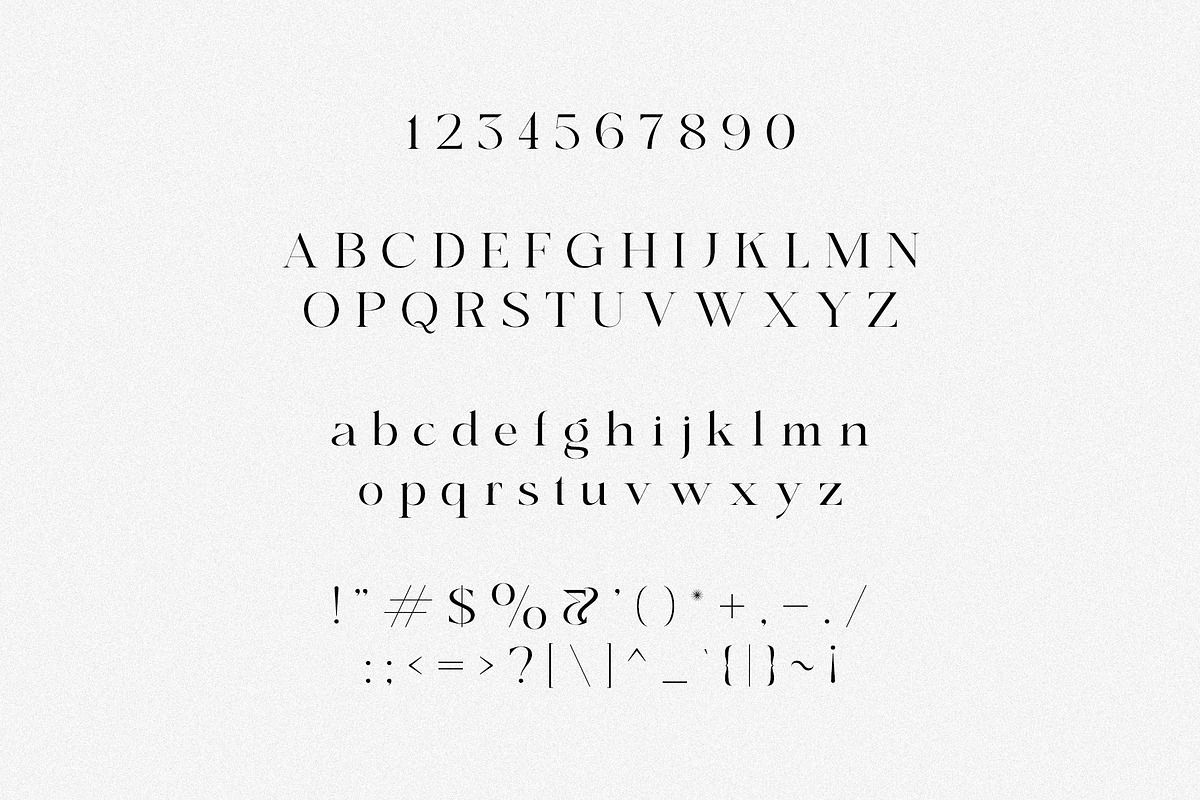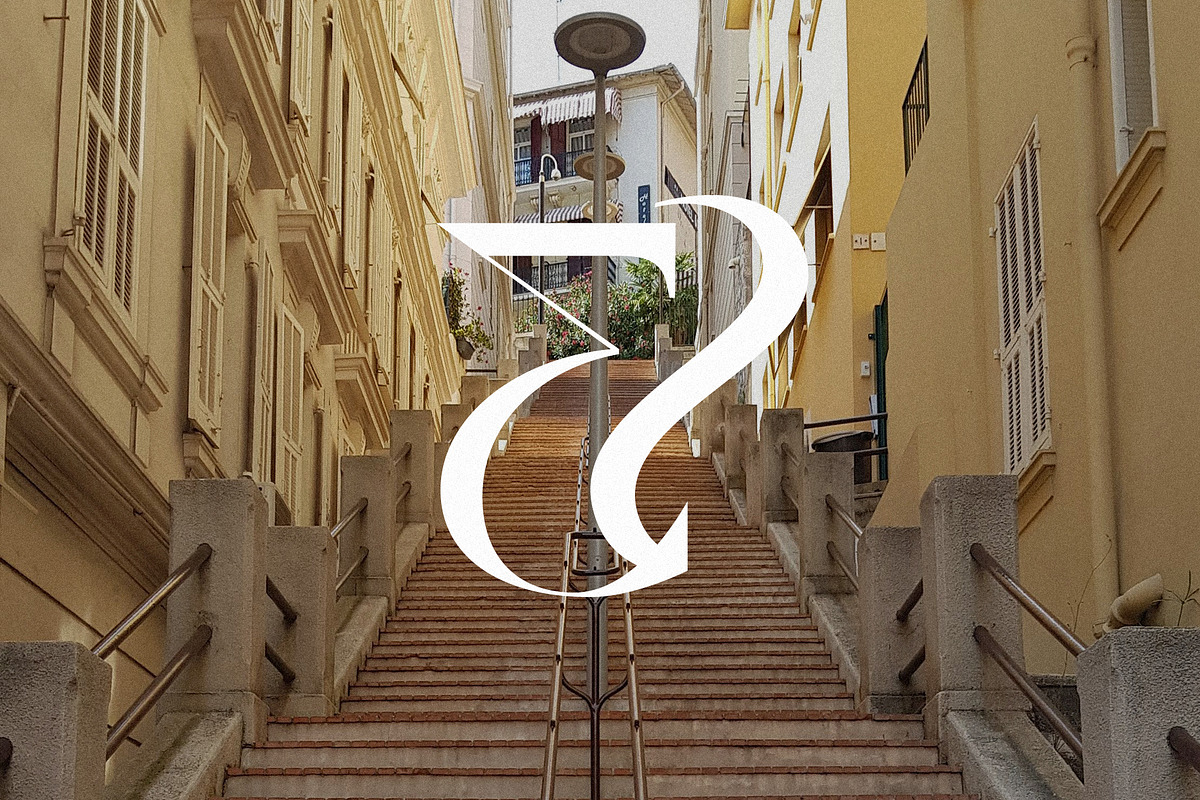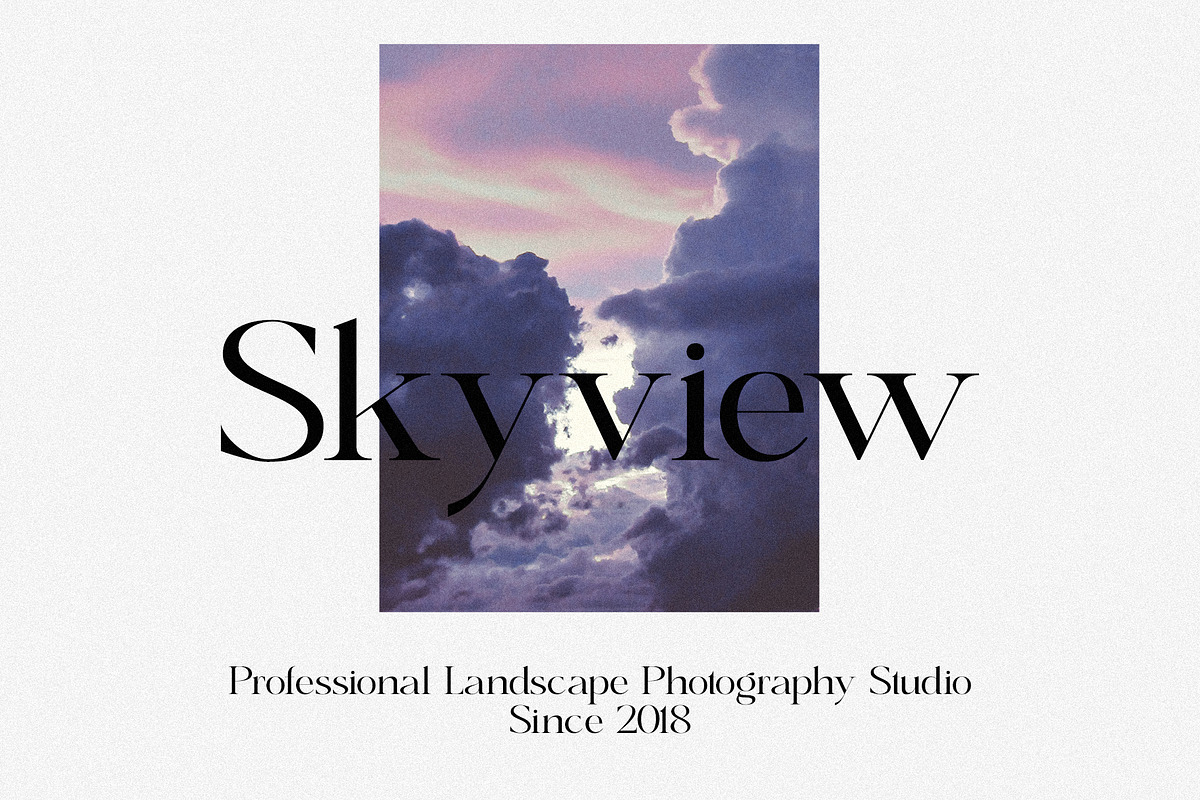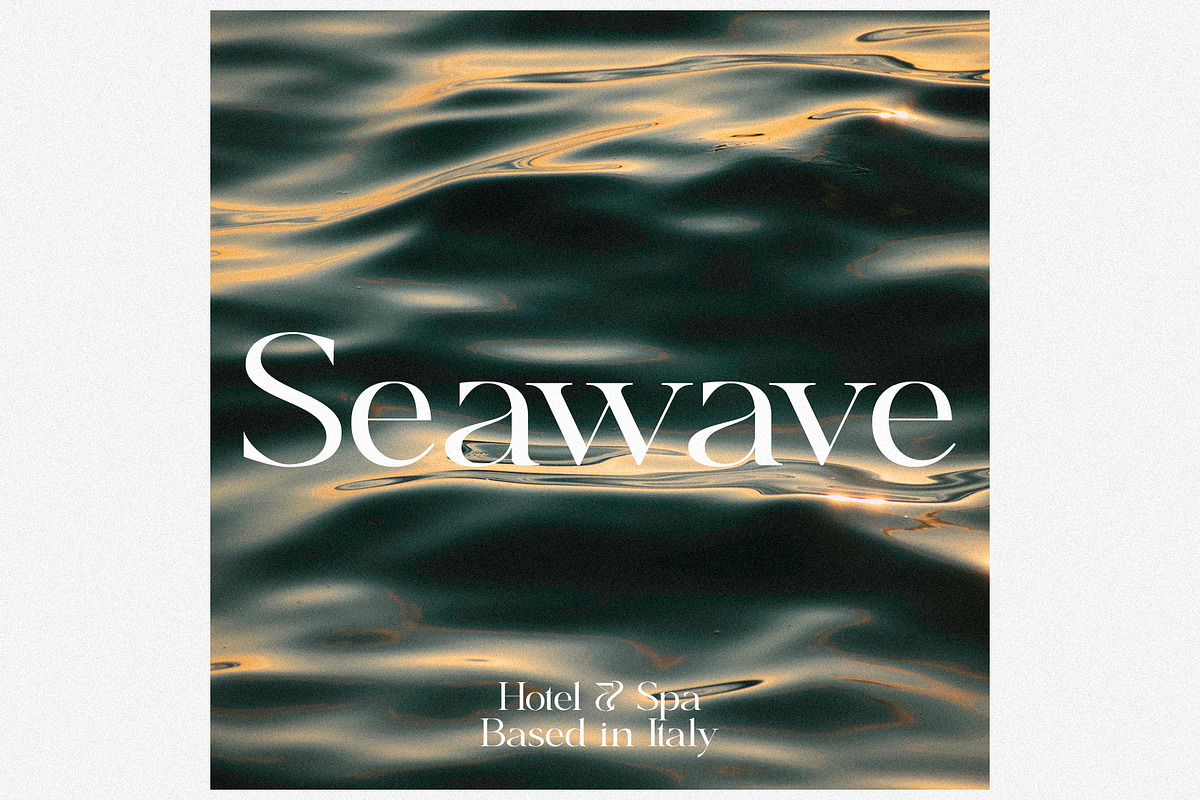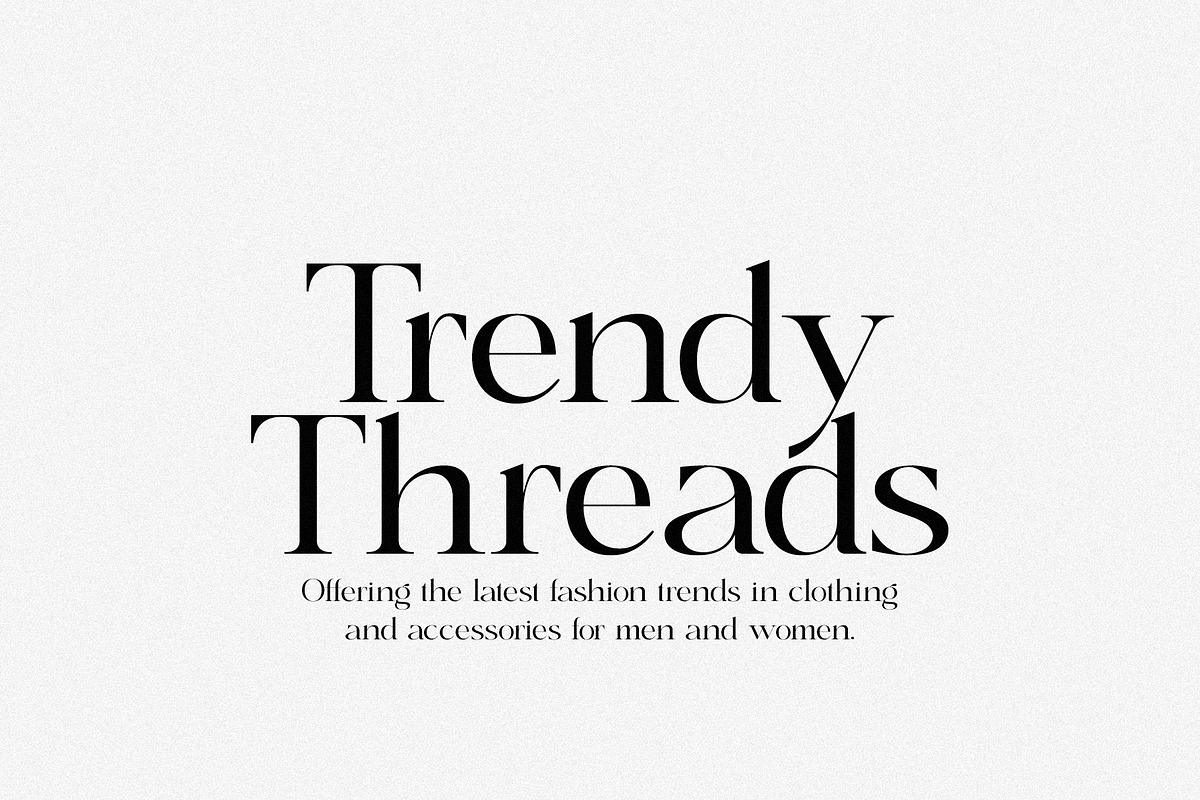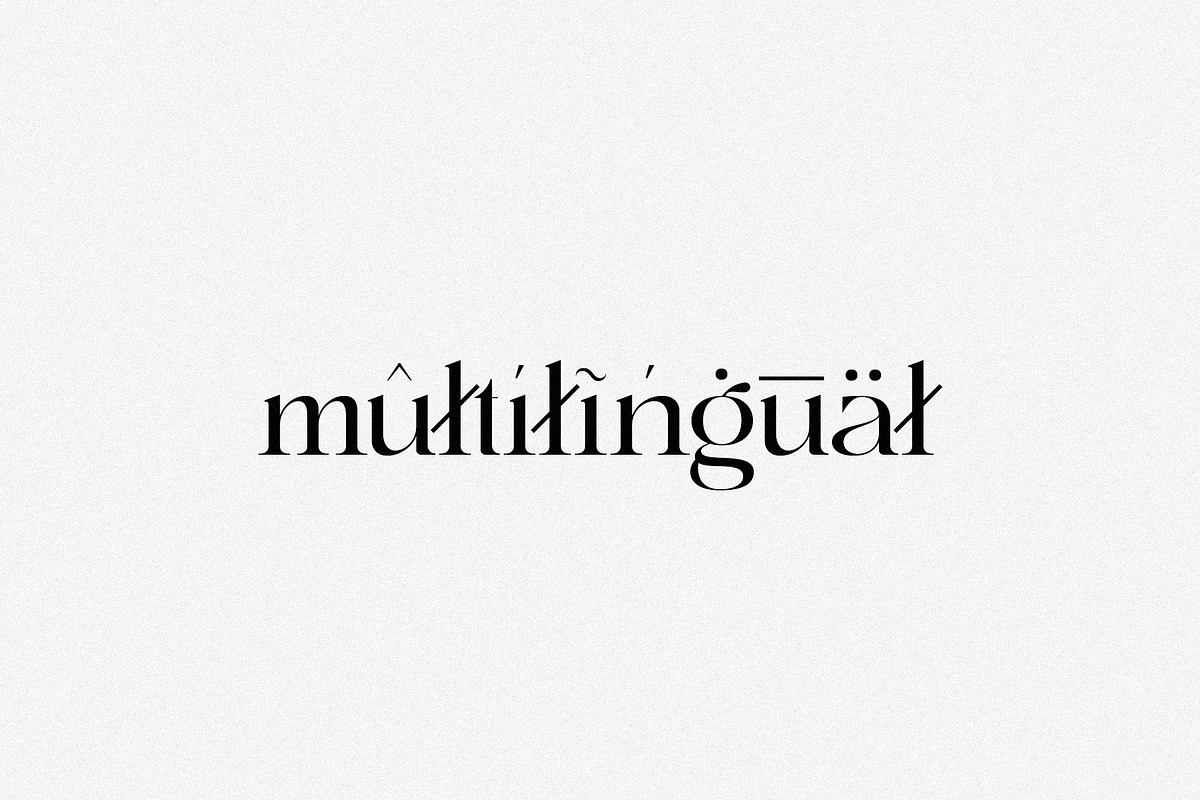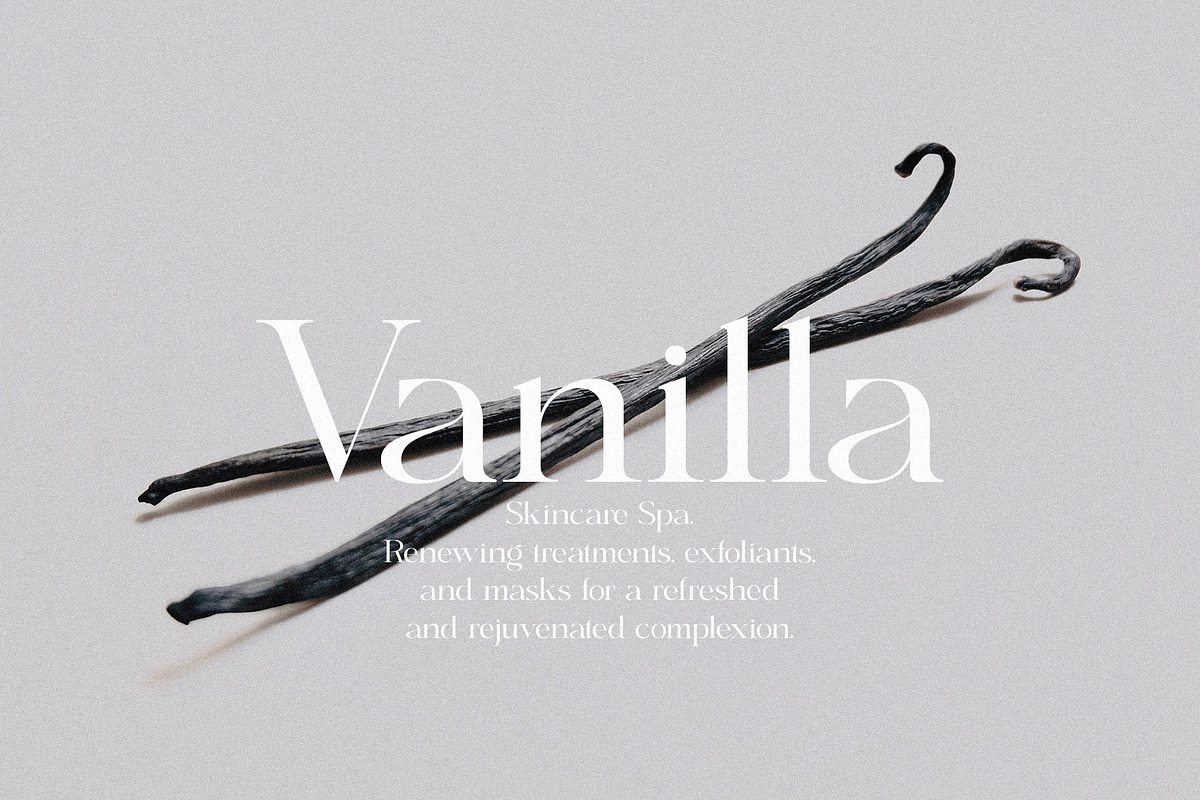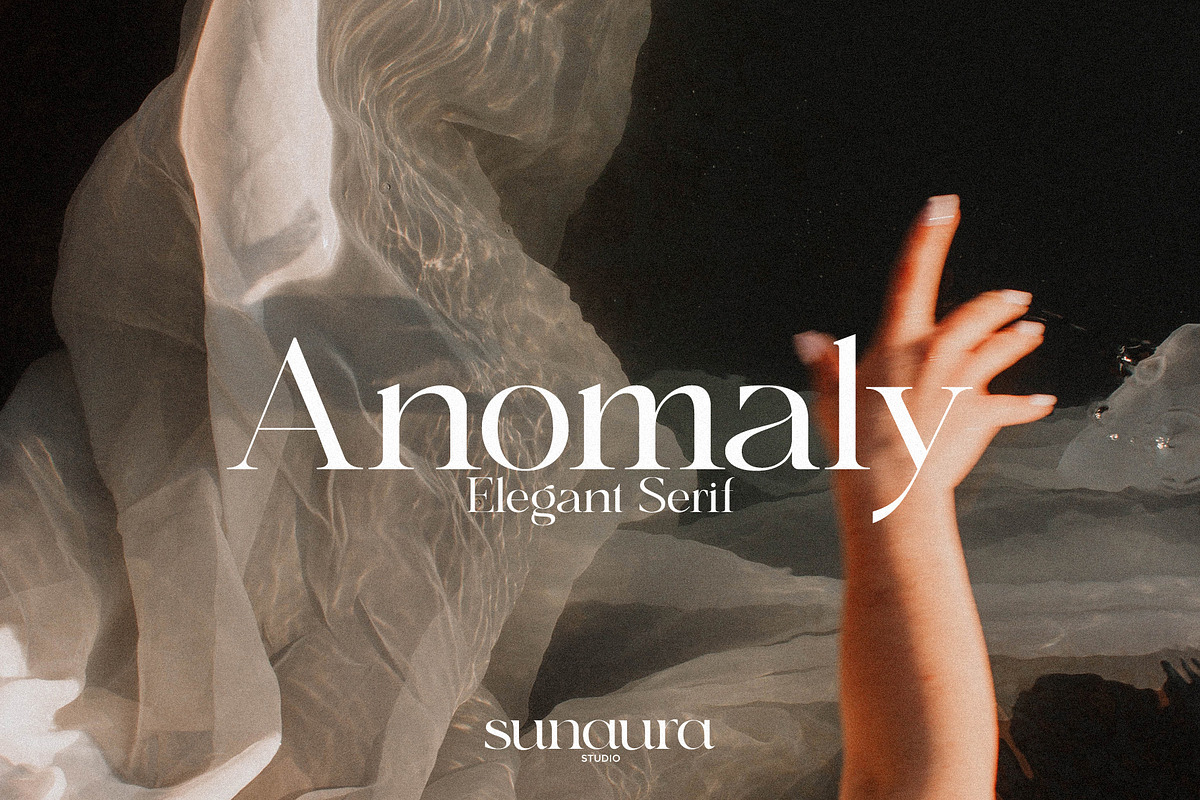
Anomaly - Elegant Serif
Anomaly is an elegant serif font that combines classic sophistication with a touch of modern flair. Its graceful serifs and stylish letterforms make it ideal for projects that require a refined and upscale aesthetic. Whether you're designing invitations, packaging, or editorial layouts, Anomaly adds a touch of elegance and sophistication to any design. With its timeless appeal and versatility, Anomaly is a perfect choice for creating a polished and professional look in your projects. Anomaly features multilingual support, over 250+ glyphs, uppercase & lowercase letters, numbers & symbols.